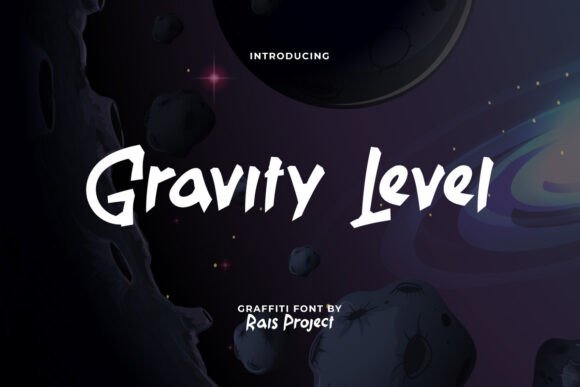
Gravity Level Font: The Ultimate Modern Display Theme for Gaming and Technology
In the world of digital design, fonts play a crucial role in conveying emotions and setting the tone for a brand or product. For those in the gaming and technology industries, having a font that radiates enthusiasm and modernity is essential. This is where the Gravity Level Font comes in – a cutting-edge, passionate display theme font designed to elevate your designs to new heights.
What is Gravity Level Font?
Gravity Level Font is a modern, passionate gaming and technology display theme font. Its style is carefully crafted to evoke a sense of excitement and energy, making it perfect for designs that require a bold and attention-grabbing approach. Whether you’re working on a new brand identity, advertisement, or product packaging, this font is sure to make a lasting impression.
Key Features of Gravity Level Font
- Modern and Passionate Design: Gravity Level Font boasts a sleek and contemporary design that exudes passion and enthusiasm.
- Versatile: This font is perfect for a wide range of designs, including advertisements, brand images, business cards, covers, custom designs, invitations, labels, menus, posters, product packaging, quotes, website pages, and more.
- Attention-Grabbing: The unique style of Gravity Level Font is sure to grab attention and leave a lasting impression on your audience.
The Many Uses of Gravity Level Font
Gravity Level Font is an incredibly versatile font that can be used in a variety of design projects. Here are some examples:
- Advertisements: Use Gravity Level Font to create eye-catching ads that grab attention and drive engagement.
- Brand Image: Establish a strong brand identity with this modern and passionate font.
- Business Cards: Make a lasting impression with Gravity Level Font on your business cards.
- Product Packaging: Add a touch of modernity and sophistication to your product packaging with this font.
- Website Pages: Use Gravity Level Font to create a bold and attention-grabbing website that reflects your brand’s personality.
The Benefits of Using Gravity Level Font
There are many benefits to using Gravity Level Font in your designs. Here are some of the most significant advantages:
- Unique and Memorable: Gravity Level Font is a one-of-a-kind font that will help your designs stand out from the crowd.
- Flexibility: This font can be used in a wide range of design projects, making it a valuable addition to your font library.
- Easy to Read: Despite its bold and attention-grabbing style, Gravity Level Font is easy to read and understand.
Tips for Using Gravity Level Font
To get the most out of Gravity Level Font, here are some tips to keep in mind:
- Use it Sparingly: While Gravity Level Font is attention-grabbing, it’s best to use it sparingly to avoid overwhelming your audience.
- Pair it with Other Fonts: Experiment with pairing Gravity Level Font with other fonts to create a unique and visually appealing design.
- Consider Your Audience: Make sure Gravity Level Font aligns with your target audience’s preferences and expectations.
Gravity Level Font is a modern, passionate gaming and technology display theme font that’s perfect for designers looking to create bold and attention-grabbing designs. With its unique style, versatility, and ease of use, this font is sure to elevate your designs to new heights. Whether you’re working on a brand identity, advertisement, or product packaging, Gravity Level Font is an excellent choice.